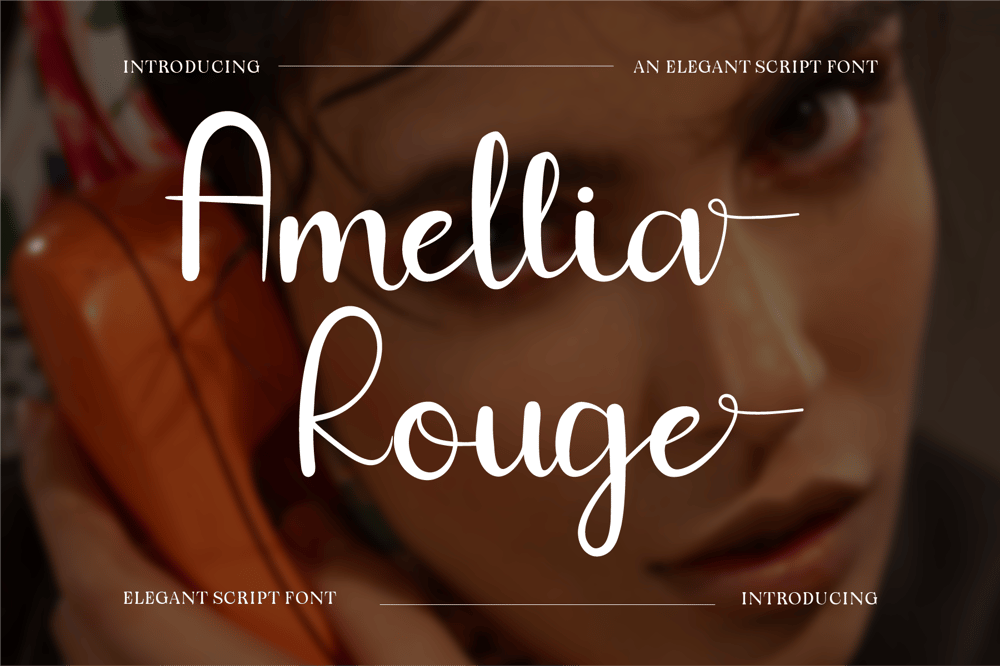
CF Amellia Rouge
CF Amellia Rouge font
CF Amellia Rouge Font Family was designed by Gilang Mei Nugraha, Frederik Aristaputra and published by Creatifont Studio. CF Amellia Rouge contains 2 styles and family package options. Amellia Rouge is an elegant script font that exudes sophistication and timeless charm. With its flowing, hand-drawn strokes and delicate details, this font brings a sense of grace and refinement to any project. Perfect for wedding invitations, luxury branding, feminine logos, and heartfelt quotes, Amellia Rouge captures the beauty of classic calligraphy while maintaining a modern flair. Its versatility ensures your designs will radiate elegance and allure, whether printed or digital.A SUMMARY OF WHAT’S INCLUDED:- Standard Character A-Z, a-z, 0-9, Punctuation & symbols- Regular and Italic- Works on PC & Mac- Simple installation- Accessible in Adobe Creative Suite (Ai, Ps, Id, etc.) even work on Microsoft Word.- PUA Encoded Characters – Fully accessible without additional design software.🌟If you come across any issues or notice anything we might have overlooked while using this product, please feel free to reach out to us. We greatly value your feedback as it helps us enhance and refine our products. Thank you!